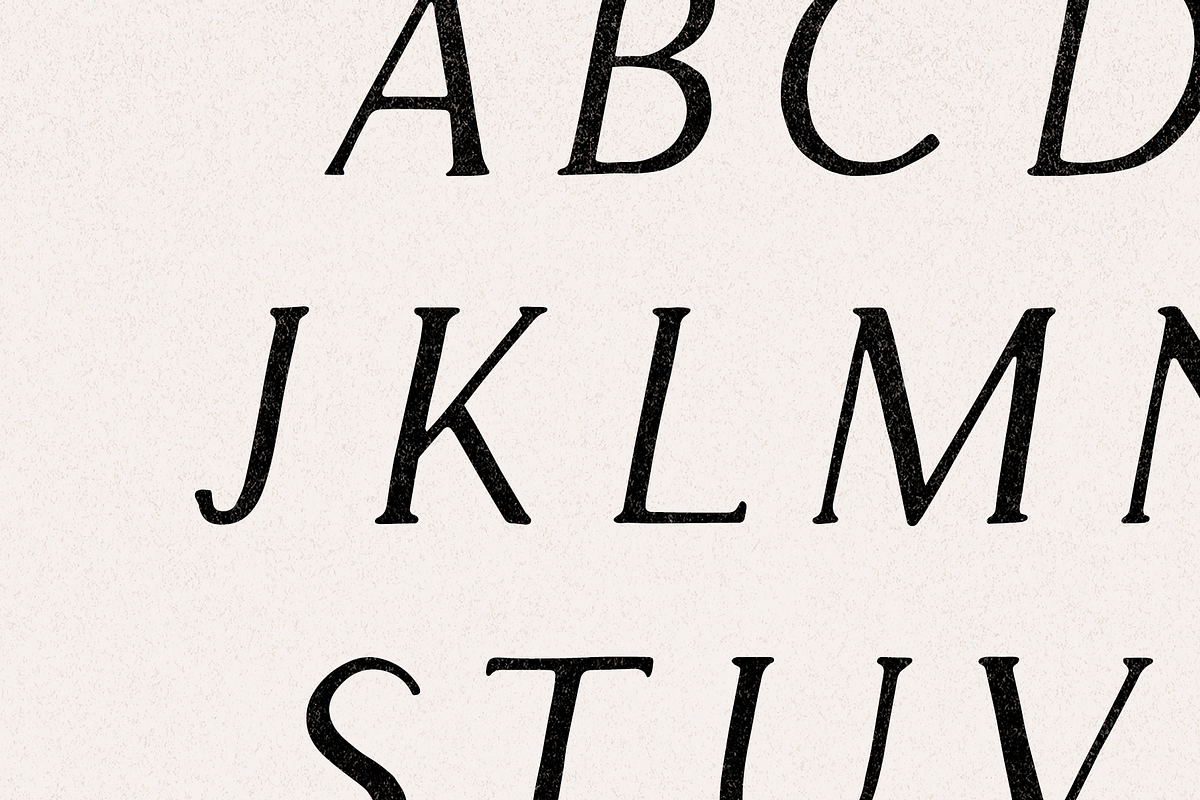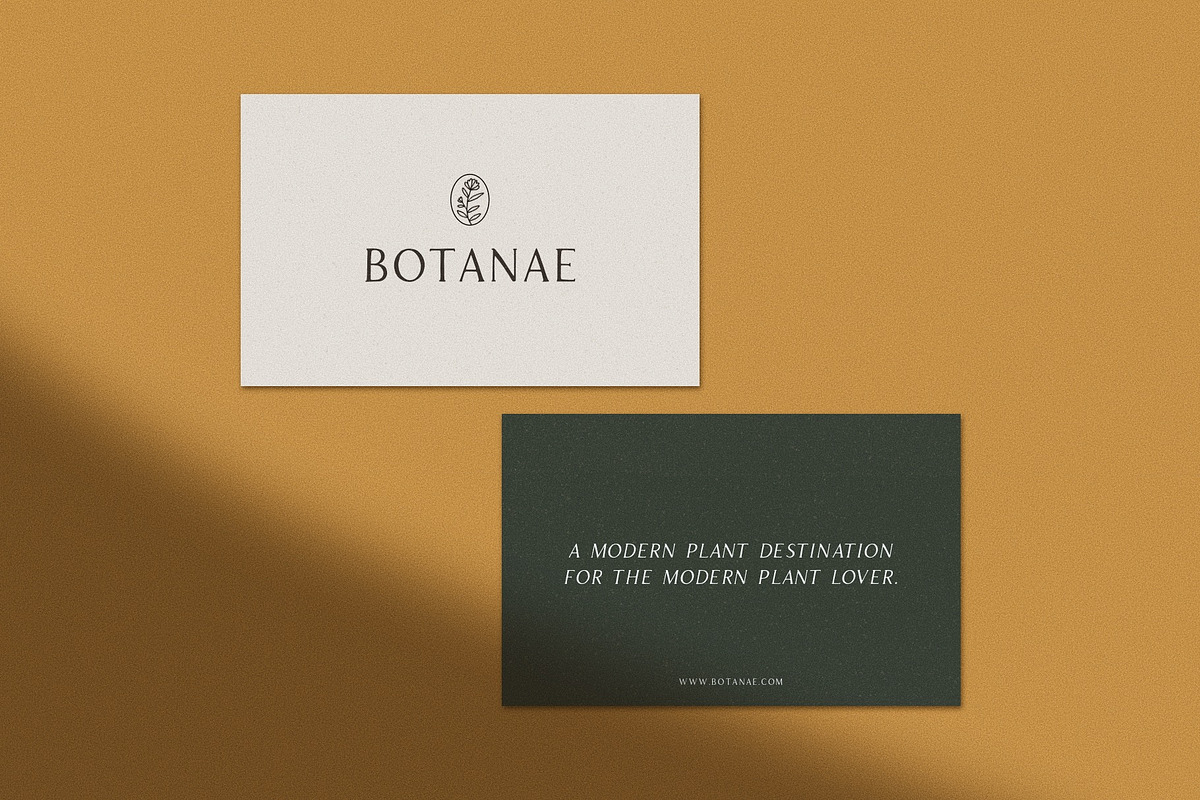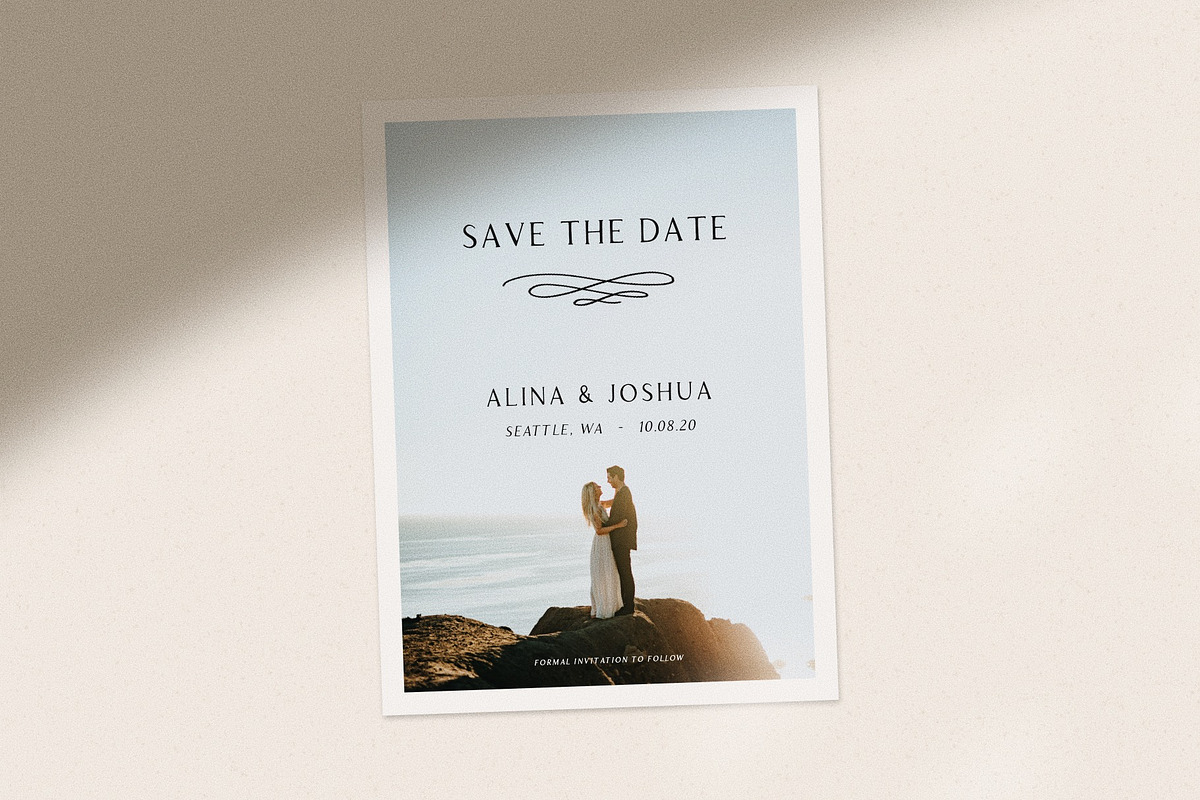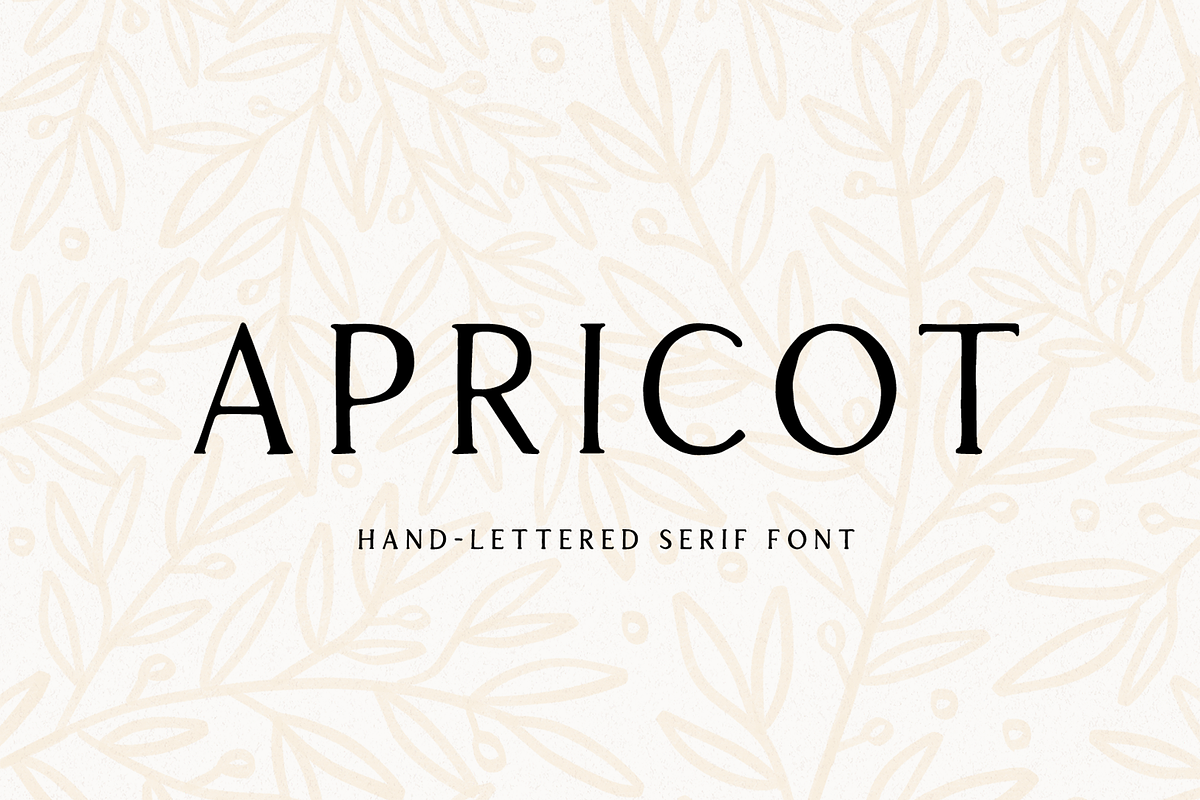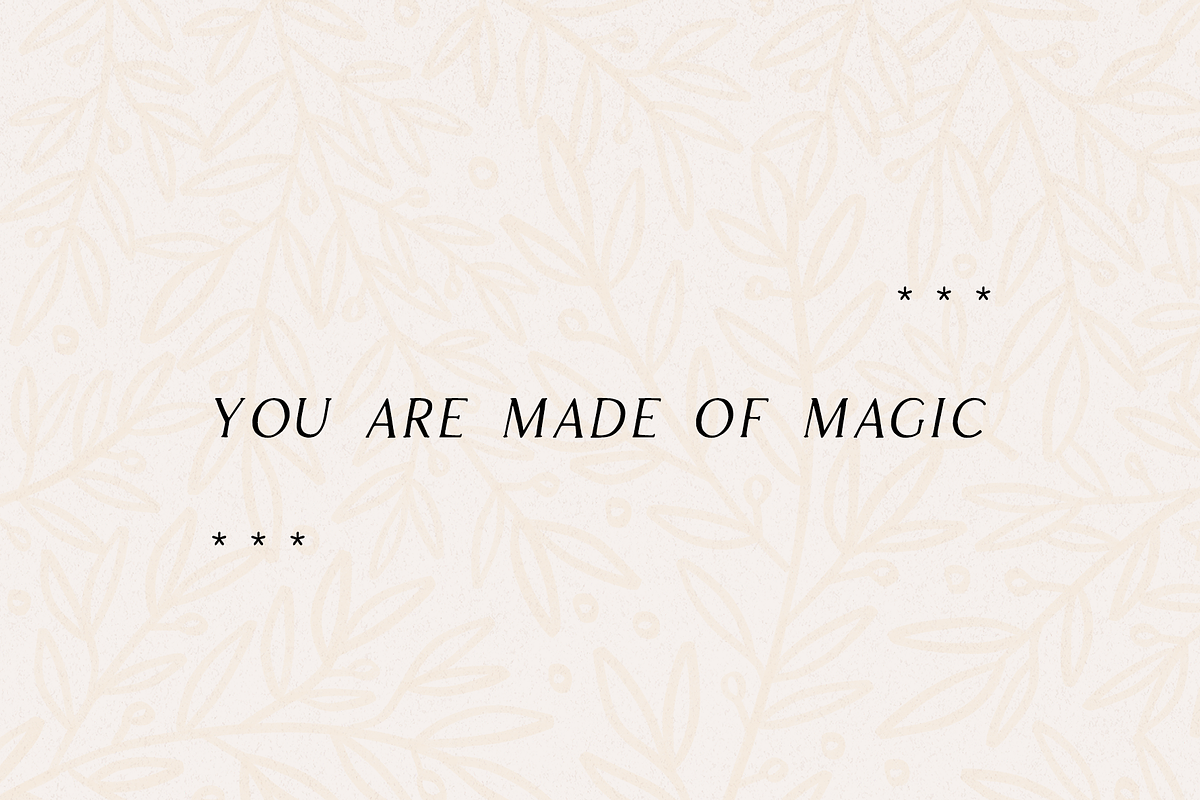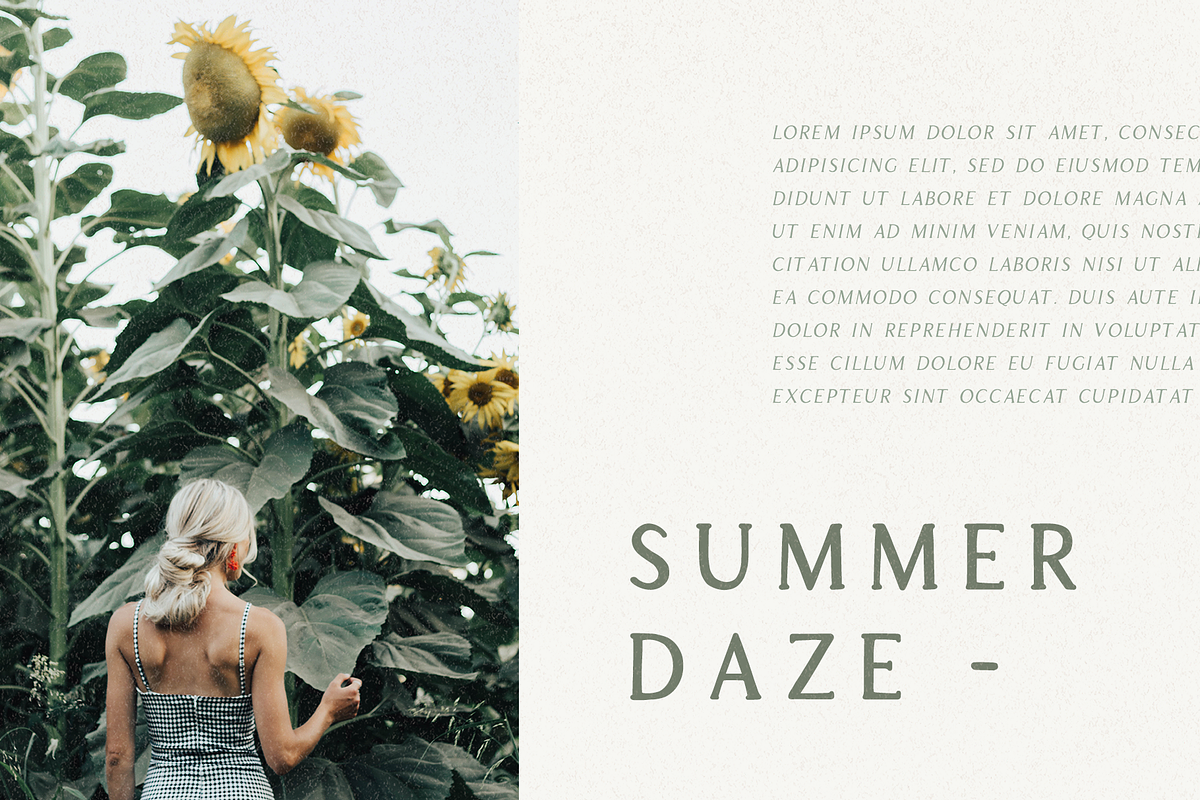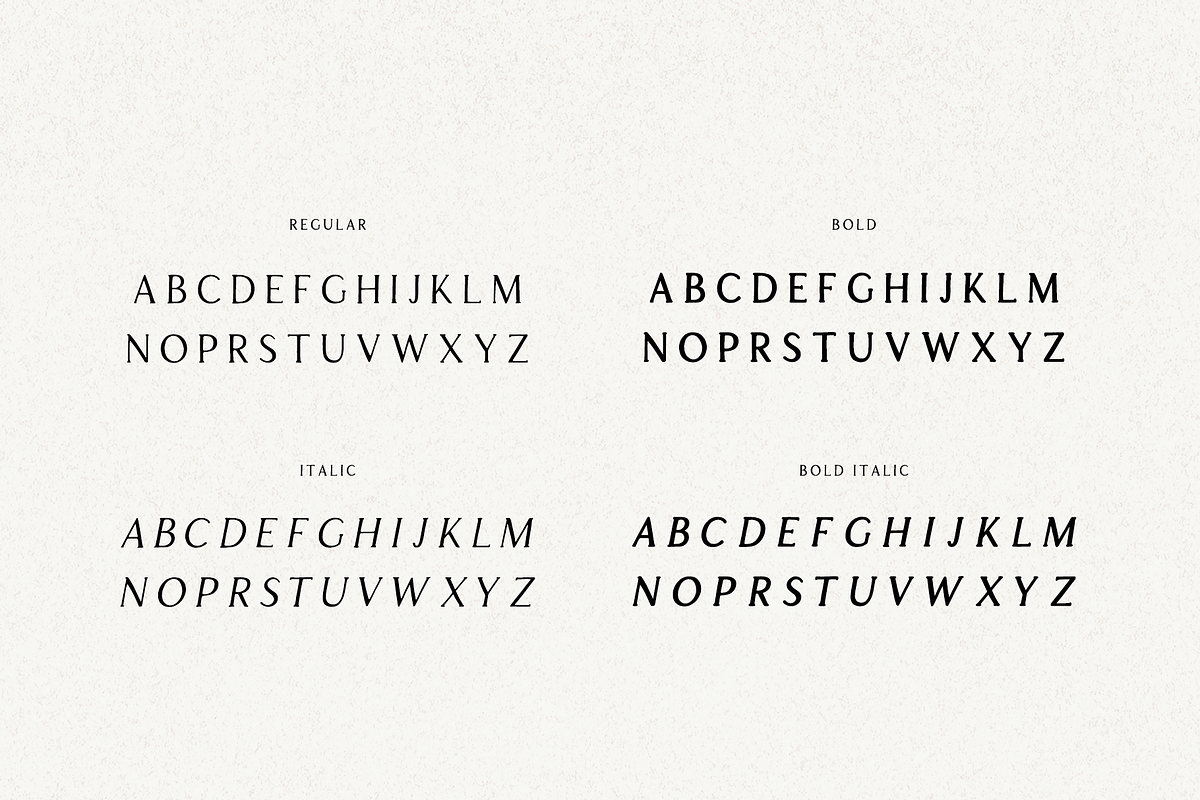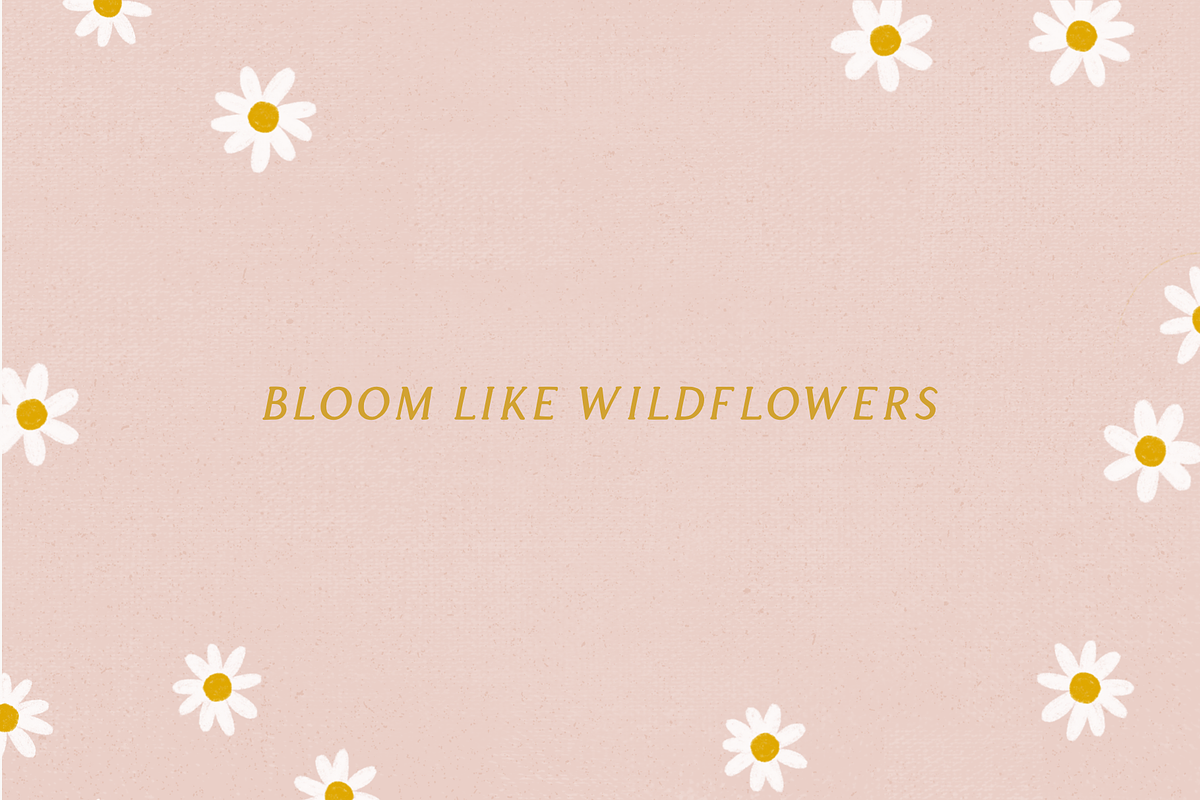
Apricot - Handlettered Serif Font
APRICOT - a sweet, hand-crafted modern serif typeface. Its hand drawn style provides a slightly imperfect look, perfect to add a handmade touch to your projects. Use for logos, quotes, invitations, blog posts, business cards, presentations and more! This font is all caps and includes full numbers and punctuation.
• Regular, Italic, Bold, Bold Italic (uppercase only)
• Numbers & Punctuation